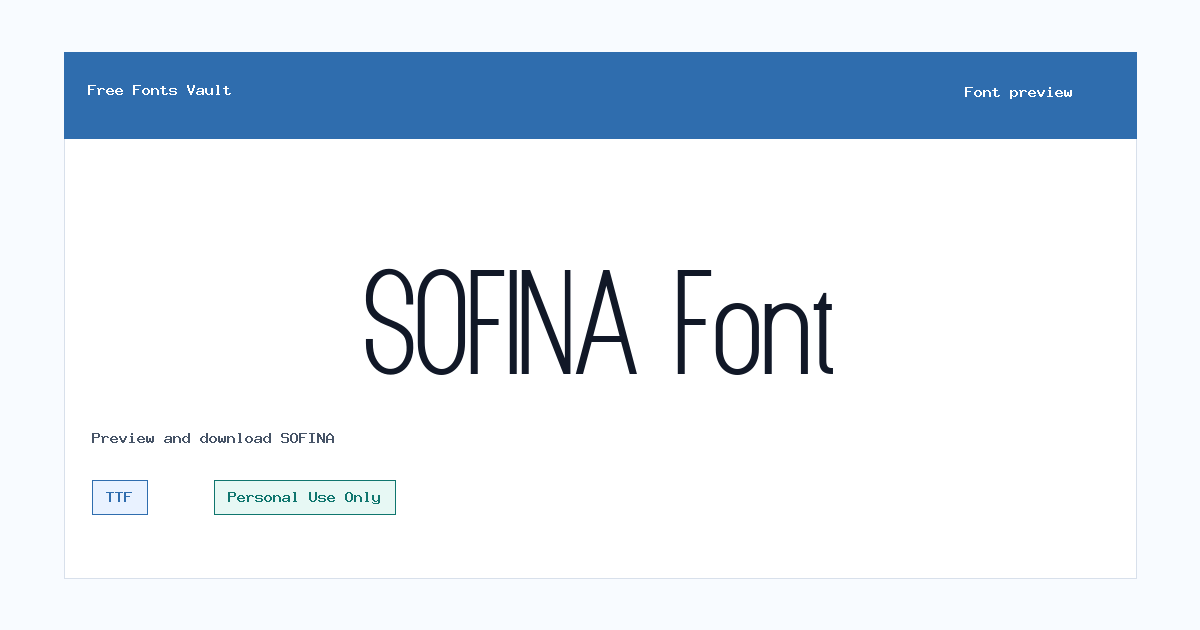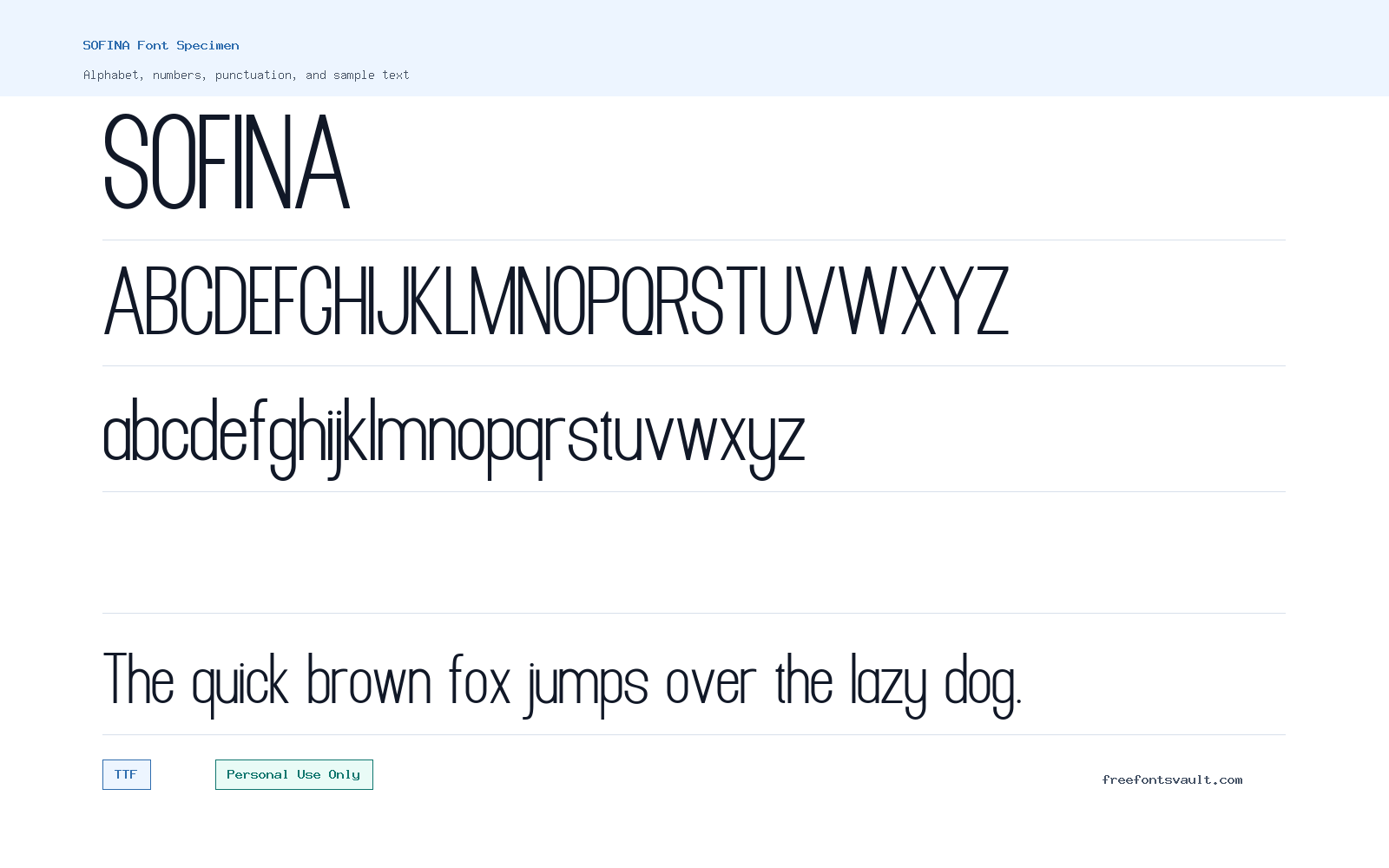
SOFINA
SOFINA font.
SOFINA is a sans serif font by FLAWLESSANDCO, offered in a regular TTF style for personal-use projects. It is a practical choice to preview when you need a straightforward typeface for short design text, mockups, display layouts, or clean visual drafts.
About SOFINA Font
SOFINA is presented as a sans serif font, which means it is built without the small finishing strokes found in serif typefaces. That makes it useful for visitors looking for a cleaner, more modern text style, especially in layouts where the words need to feel simple and direct. The available file is a regular weight TTF, so the best way to judge it is by testing your own words in the preview: names, headlines, short slogans, menu labels, social post text, and logo-style lettering. Pay close attention to letter spacing, uppercase shapes, punctuation, numbers, and how the font handles repeated letters such as “OO,” “LL,” or “SS.” Those details often matter more than a broad style label.
For design work, SOFINA is best treated as a starting point for personal drafts and non-commercial visuals unless you have a separate commercial license. Try it in poster concepts, mood boards, web mockups, thumbnail text, branding studies, and presentation headings. If you are exploring logo work, preview the exact brand name rather than judging the font from sample text alone. A clean sans serif can look very different depending on word length, letter combinations, and spacing. For body copy, test several lines before relying on it in a layout; a regular display-friendly font may still need careful sizing and line height to stay readable in longer paragraphs.
SOFINA can pair well with a contrasting font when the layout needs hierarchy. If you use it for a heading, consider a quiet serif or neutral system sans for longer supporting text. If you use it for labels or navigation in a web mockup, keep the rest of the typography simple so the design does not feel crowded. Avoid pairing it with another strong display font unless you are making a poster or experimental graphic where contrast is intentional. For social media graphics, short lines usually work best: test two to six words, increase tracking only if the letters feel tight, and check the result at mobile size before exporting.
- Sans serif style suited to clean headlines, labels, mockups, and short display text.
- Good candidate for personal poster concepts, social graphics, web layout studies, and branding experiments.
- Simple style direction makes it easy to pair with quieter body fonts, especially in minimal layouts.
- Best evaluated with custom preview text, including uppercase letters, numbers, punctuation, and real project wording.
- Poster titles and social media graphics
- Logo and wordmark exploration before licensing
- Website and app mockup headings
- Presentation titles and clean layout studies
- Mood boards, style tiles, and typography tests
What type of font is SOFINA?
SOFINA is listed as a sans serif font. It is best previewed for clean headings, short text, design mockups, and personal visual projects.
Is SOFINA good for body text?
Test it first. It may work for short labels or small blocks, but longer reading text needs careful checks for spacing, line height, and readability at the size you plan to use.
How should I pair SOFINA with other fonts?
Use SOFINA for the main heading or display text, then pair it with a simple serif or neutral sans serif for longer supporting copy. Keep the pairing restrained so the layout stays clear.